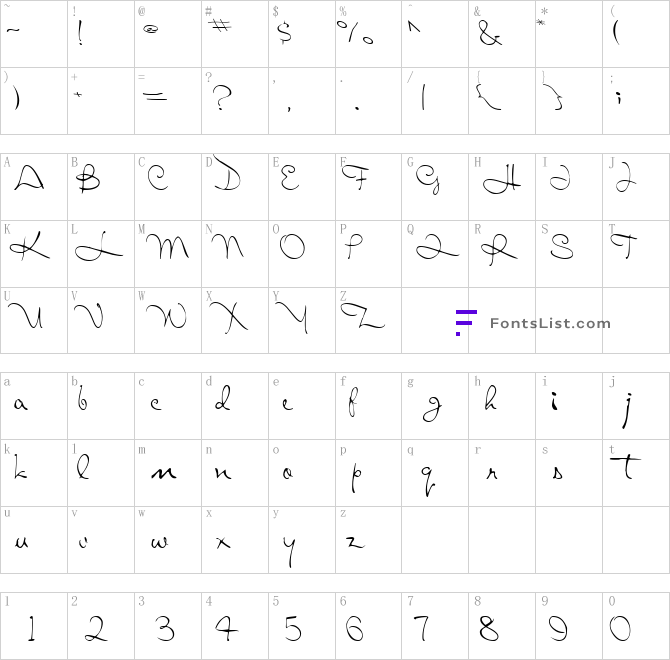
- Font Name:AlicoScriptSSK
AlicoScriptSSK.ttf is a very beautiful artistic font, AlicoScriptSSK.ttf is widely used in the design and printing of various books and pictures,AlicoScriptSSK.ttf has a strong visual impact,AlicoScriptSSK.ttf is a commonly used font in newspapers, magazines and books, and is used in posters, e-commerce Poster design, store design, logo design, font design and other fields.AlicoScriptSSK.